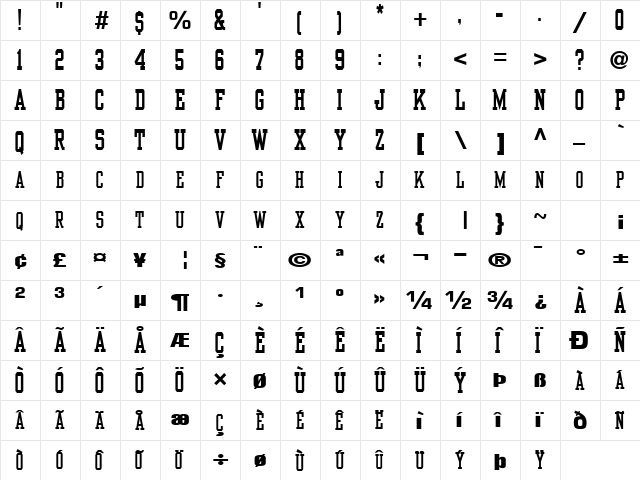
CastanetSCapsSSK Bold Font Preview
CastanetSCapsSSK Bold
CastanetSCapsSSK Bold Font Details
Design Context for CastanetSCapsSSK Typeface
CastanetSCapsSSK takes a measured approach to typography — its balanced proportions and neutral character make it a reliable workhorse for both digital and print work. The heavy weight commands attention and anchors typographic hierarchies.